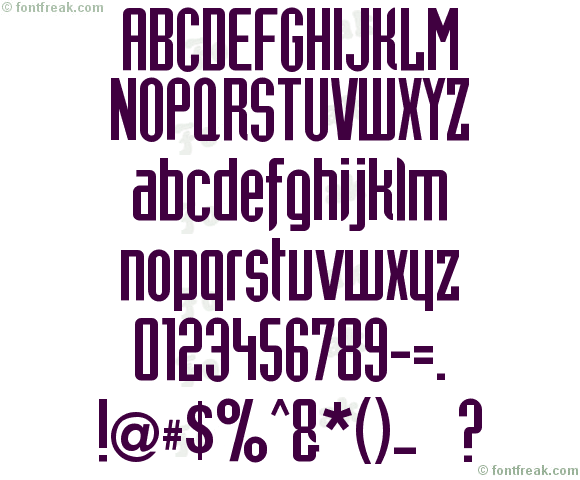
Trust This One
About Trust This One
Trust This One by Levi is a striking sans-serif font that exudes modernity and confidence. Released in 2000 and available as freeware, this font is characterized by its bold stroke weight and clean lines, making it a versatile choice for a variety of design projects. The uniformity in spacing gives it a balanced appearance, while the subtle geometric shapes add a touch of contemporary flair. The absence of excessive decorative elements allows for easy readability, making it an ideal candidate for both print and digital applications.
The Trust This One font is particularly well-suited for use cases such as branding for small businesses, where a strong and trustworthy impression is essential. Its bold characteristics make it perfect for eye-catching headlines in advertisements or on social media graphics. Additionally, this font can elevate restaurant menus, offering a modern yet approachable aesthetic that can appeal to a diverse clientele. Wedding invitations also benefit from its clean lines, providing a stylish yet elegant option for couples looking to convey both sophistication and simplicity.
The target audience for this typeface includes graphic designers, small business owners, and content creators who are searching for a font that communicates reliability and professionalism. Its straightforward design allows for easy integration into various projects, making it a valuable addition to any designer's toolkit.